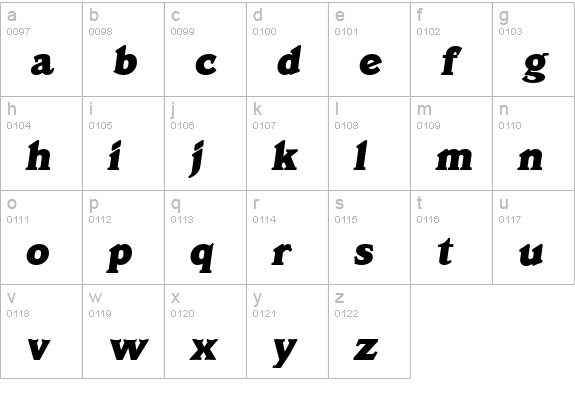
VeracruzSerial-Heavy-Italic is a heavy, high-impact, italic variant in the VeracruzSerial typeface family \xE2\x80\x94 well suited to high-impact headlines, posters, and display advertising.
VeracruzSerial-Heavy-Italic is a bold and dynamic font that exudes sophistication and modernity. Its slanted italic style adds a touch of elegance to any design project, making it perfect for headings, titles, and branding materials. The strong, heavy weight of this font makes a bold statement while maintaining readability and style. Best of all, VeracruzSerial-Heavy-Italic is available for free download at FontsMarket.com. Whether you're a designer looking to add a unique flair to your creations or a business owner seeking a distinctive font for your brand, VeracruzSerial-Heavy-Italic is a versatile choice that will elevate your designs with its sleek and contemporary aesthetic. Download it today and unleash your creativity with this stunning typeface.